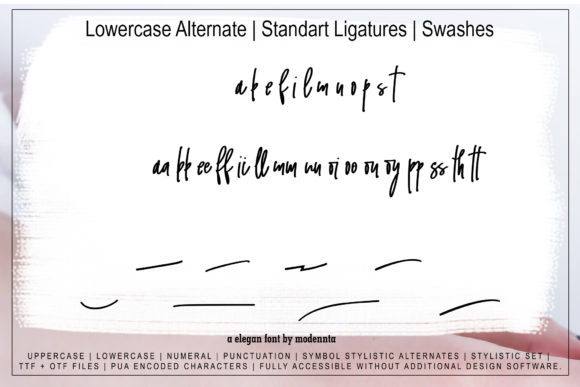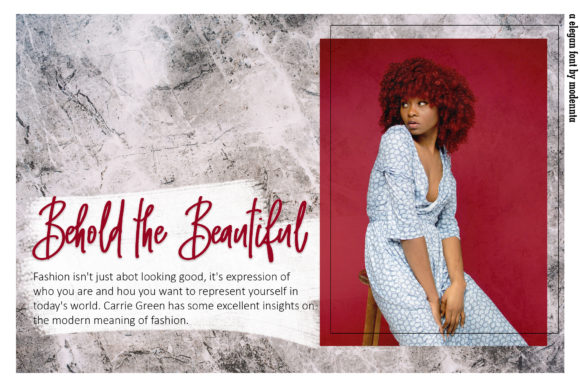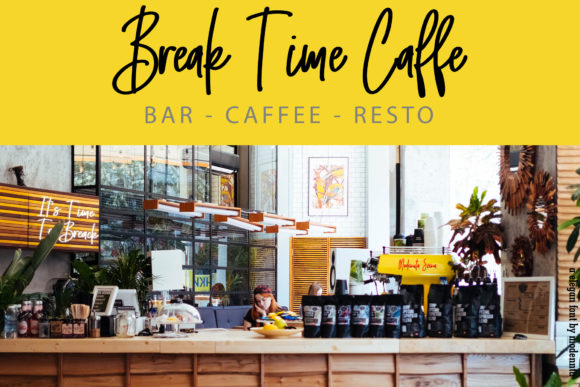
Introduction to Emma Signature Font
Have you ever stared at a blank canvas, eager to bring a creative project to life, only to feel stuck by the monotony of the same old fonts? That’s where the magic of the Emma Signature Font comes in – a modernistic script font that’s full of life and guaranteed to turn any design project into a true standout!
| 👤 Author | modennta |
As a designer, you understand the importance of having high-quality design resources at your fingertips. The Emma Signature Font is a valuable addition to any designer’s toolkit, offering a free download that’s perfect for a wide range of creative projects. Whether you’re working on a logo, business card, or social media graphics, this versatile font is sure to elevate your design to the next level.
Key Features of Emma Signature Font
- High-quality font design with a unique, creative touch suitable for various projects.
- Comes with a transparent background, making it easy to place over different images and designs.
- Perfect for personal or commercial projects, including digital art, graphic design, and creative writing.
- Features a high-resolution design, ensuring crisp and clear text display even at large sizes.
- Includes a range of font sizes and styles, allowing for flexibility and customization in your design project.
- Designed as a design resource for creatives, making it an excellent addition to your font collection.
Honest Review: Emma Signature Font
I recently had the chance to work with the Emma Signature Font and I must say, it’s been a game-changer for my creative projects. This font is perfect for those who want to add a touch of elegance and sophistication to their designs.
- High quality design that looks great on various backgrounds, including transparent backgrounds.
- Extremely versatile and can be used for a wide range of creative projects, from branding to typography.
However, I did notice a few limitations:
- ⚠️ Limited language support, which might be a concern for those who work with international clients.
- ⚠️ Some users might find the font a bit too ornate, which can make it difficult to read in certain contexts.
Overall, I’m really impressed with the Emma Signature Font. Its high quality and versatility make it an excellent addition to any designer’s toolkit. While it’s not perfect, I think the benefits far outweigh the limitations. If you’re looking for a beautiful and elegant font to elevate your designs, I’d definitely recommend giving the Emma Signature Font a try.
Tips for Getting the Most Out of the Emma Signature Font
To get the most out of the Emma Signature Font, use it in combination with other design elements to create a cohesive look. Experiment with different font sizes, colors, and styles to find the perfect combination for your project. Additionally, use the font’s transparent background to add a touch of elegance to your designs.
The Emma Signature Font is perfect for a variety of creative projects, including social media graphics, flyers, posters, presentations, and documents. Its high quality and versatility make it a great design resource for anyone looking to add a touch of elegance to their designs.